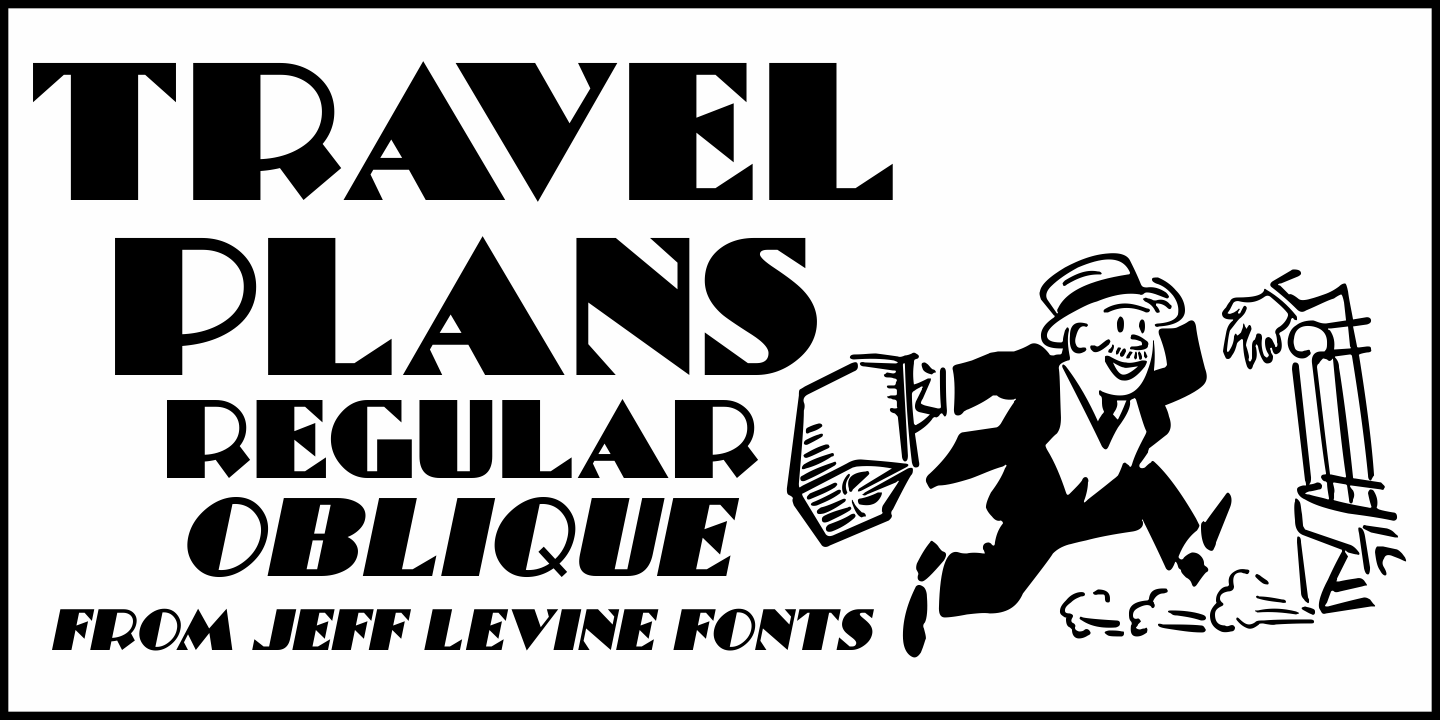
Travel Plans
A 1930s travel poster from American Airlines had the airline’s name in a classic thick-and-thin Art Deco design of hand lettering. With the addition of angular spurs, some of the characters become semi-serif in nature.
This type style is now available as Travel Plans JNL, in both regular and oblique versions.